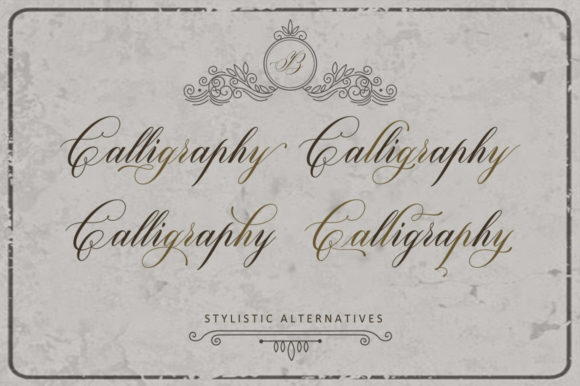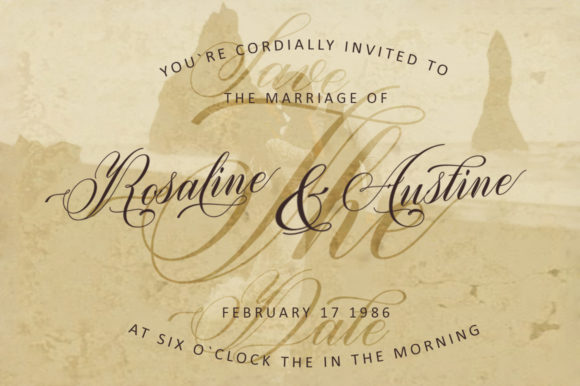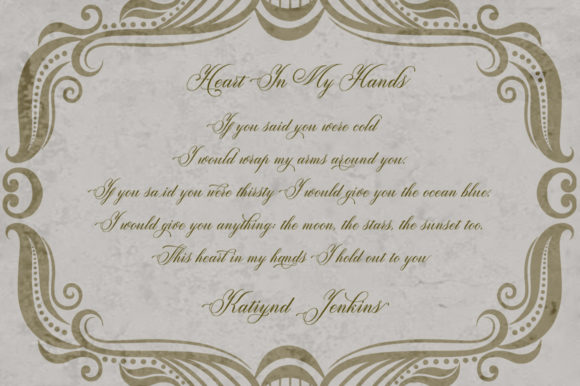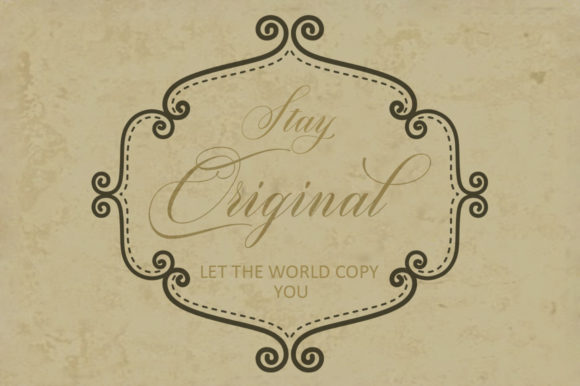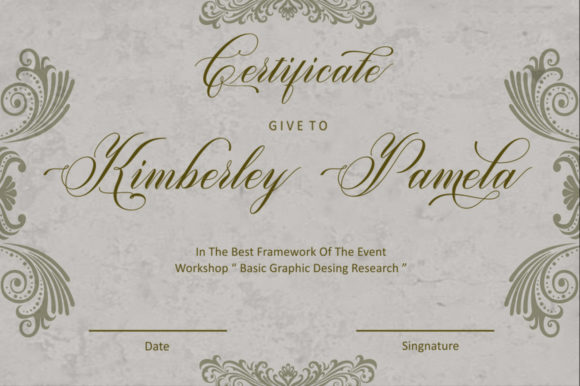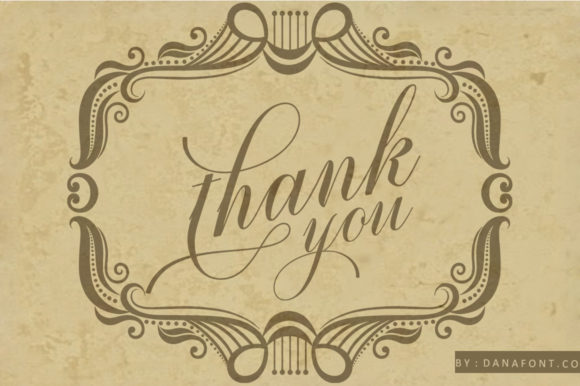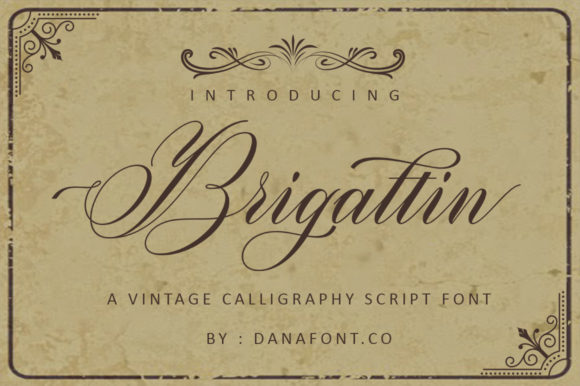
Introducing Brigattin Font: The Ultimate Handwritten Calligraphy Font
Are you a designer, crafter, or creative looking for a stunning handwritten font to elevate your projects? Look no further than Brigattin Font, a gorgeous and charming calligraphy font that’s sure to become your new favorite. With its unique blend of elegance and playfulness, Brigattin is the perfect choice for a wide range of design applications, from wedding invitations and branding to packaging and digital marketing materials.
What Makes Brigattin Font So Special?
Brigattin Font is a true standout in the world of handwritten fonts, thanks to its exceptional design and versatility. Here are just a few of the key features that make Brigattin a must-have for designers and crafters:
- PUA Encoding: Brigattin Font is PUA (Private Use Area) encoded, which means you can access all of the glyphs and swashes with ease. This makes it simple to create stunning designs with a high level of customization.
- Varying Baseline: Brigattin features a varying baseline, which gives it a natural, handwritten feel that’s perfect for creating organic and earthy designs.
- Smooth Lines: The font’s smooth lines and flowing curves create a sense of elegance and sophistication, making it ideal for high-end branding and luxury packaging.
- Gorgeous Glyphs: Brigattin includes a wide range of gorgeous glyphs, including alternates, ligatures, and swashes. These glyphs can be used to add visual interest and personality to your designs.
- Stunning Alternates: The font comes with a range of stunning alternates, allowing you to experiment with different looks and styles to find the perfect fit for your project.
How to Use Brigattin Font in Your Designs
Brigattin Font is incredibly versatile and can be used in a wide range of design applications. Here are a few ideas to get you started:
- Wedding Invitations: Create beautiful, bespoke wedding invitations that set the tone for a special day.
- Branding and Packaging: Use Brigattin to create stunning brand identities and packaging that stands out on store shelves.
- Digital Marketing Materials: Add a touch of elegance and sophistication to your digital marketing materials, including social media graphics and email campaigns.
- Crafting and Scrapbooking: Brigattin is perfect for crafters and scrapbookers looking to add a personal touch to their projects.
Tips for Getting the Most Out of Brigattin Font
To get the most out of Brigattin Font, here are a few tips to keep in mind:
- Experiment with Different Glyphs: Don’t be afraid to experiment with different glyphs and swashes to find the perfect combination for your design.
- Play with Font Sizes: Brigattin looks great at a range of font sizes, so don’t be afraid to experiment with different sizes to create visual interest.
- Pair with Other Fonts: Brigattin pairs beautifully with other fonts, so consider combining it with a bold sans-serif or a elegant script font.